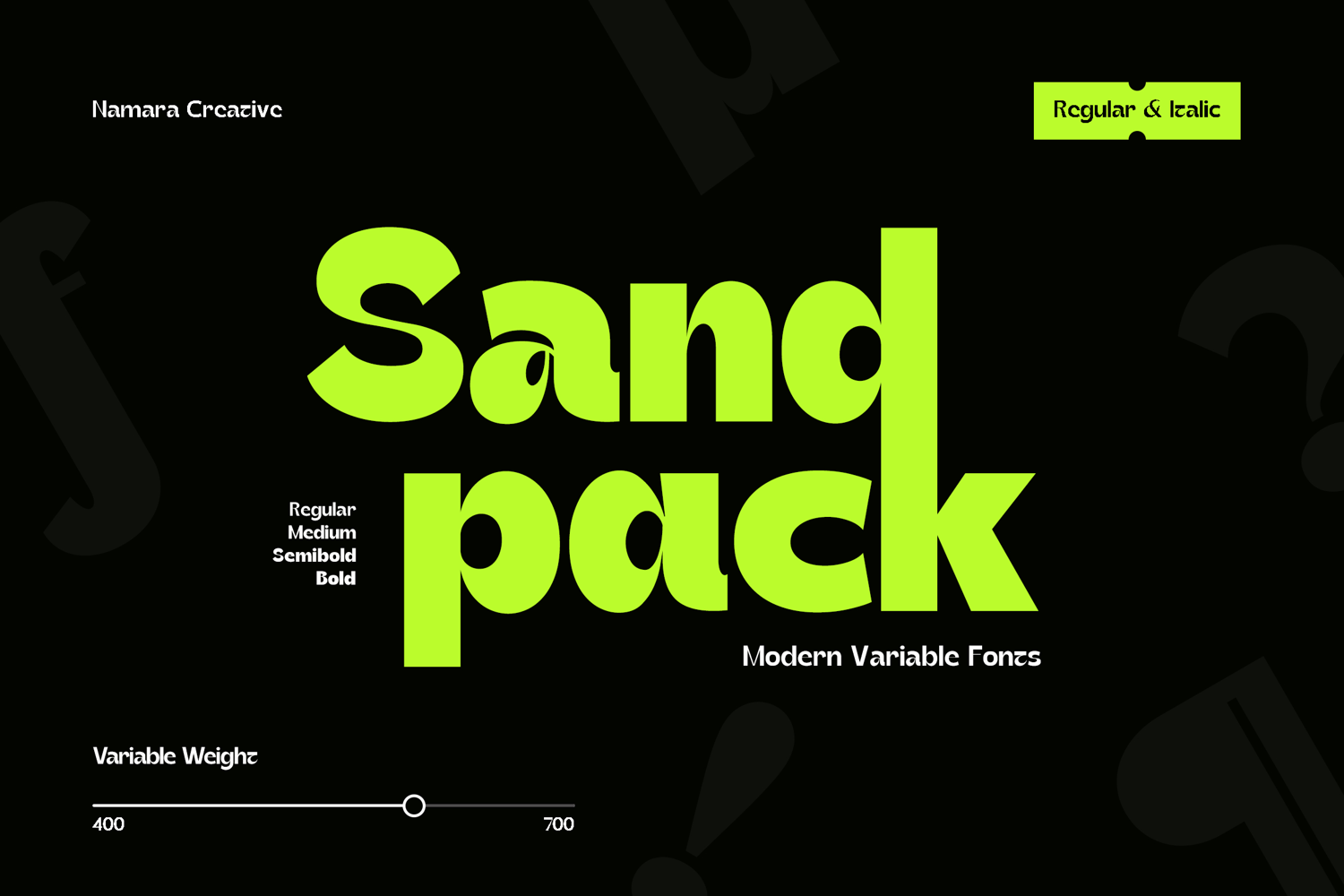
Sandpack - Modern Variable Sans
Elevate your projects with our versatile typeface. It combines the timeless charm of retro design with a sleek, contemporary edge, making it perfect for everything from bold headlines to eye-catching logos. This font adapts effortlessly to your creative needs. With variable weights and styles, you can customize it to fit any project, ensuring your text stands out with a unique flair.
The variable settings allow an easy transition from thick, commanding headers to sleek, minimalist body text. Whether aiming for a nostalgic feel or a futuristic look, this font provides the flexibility and impact you need.